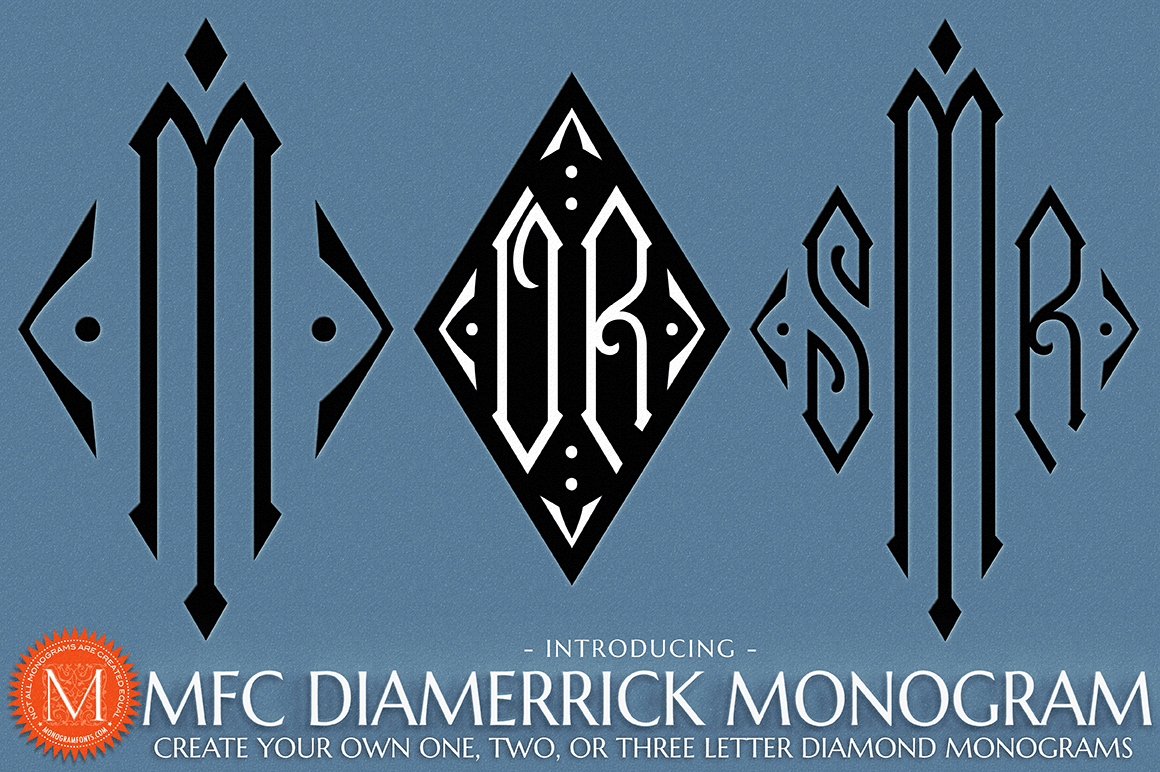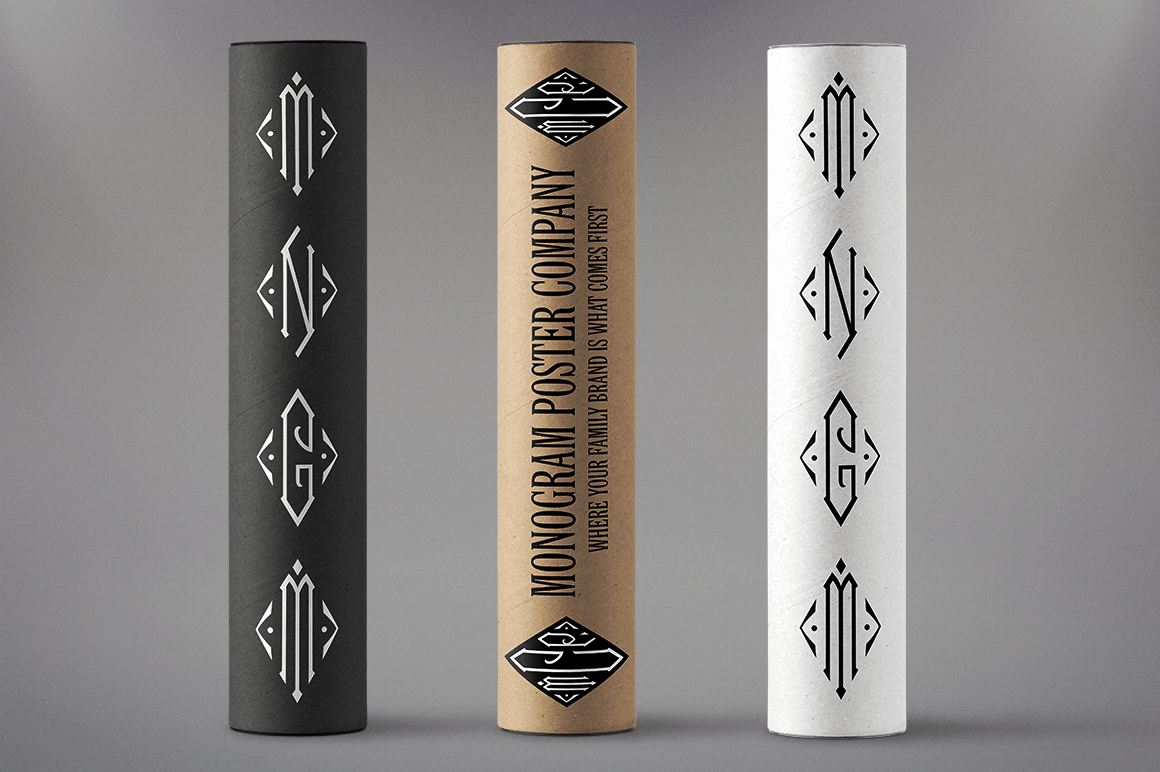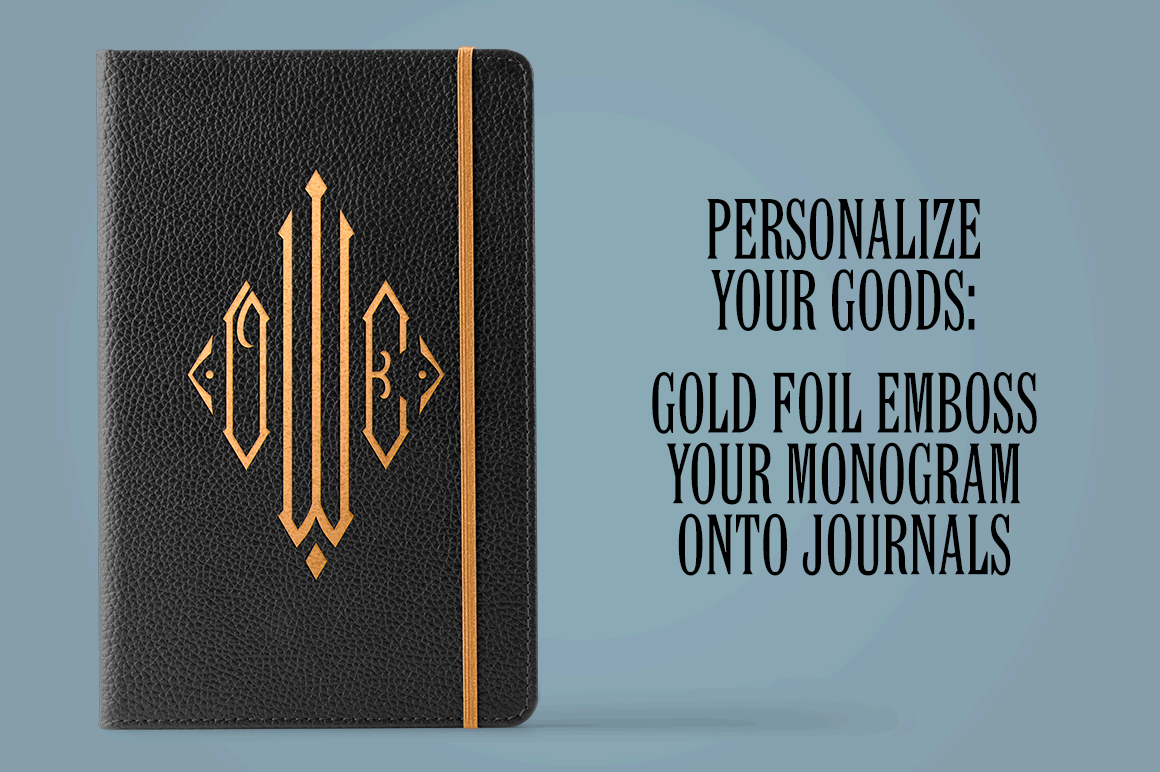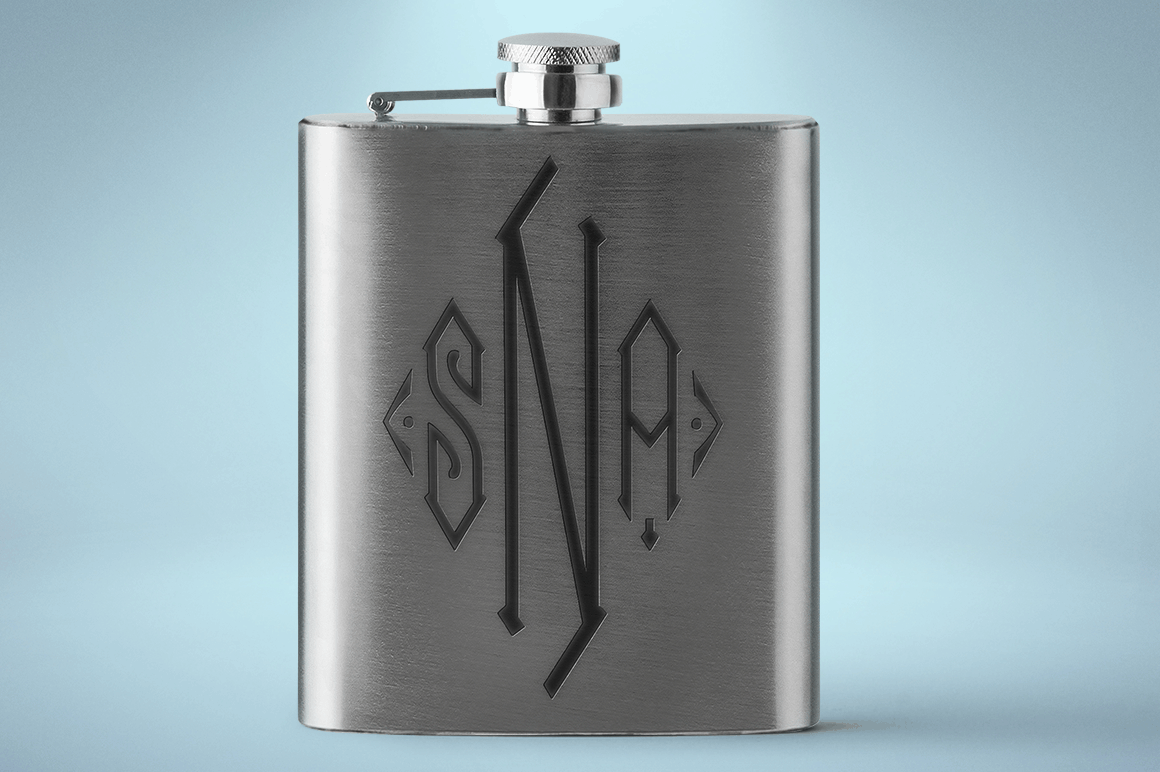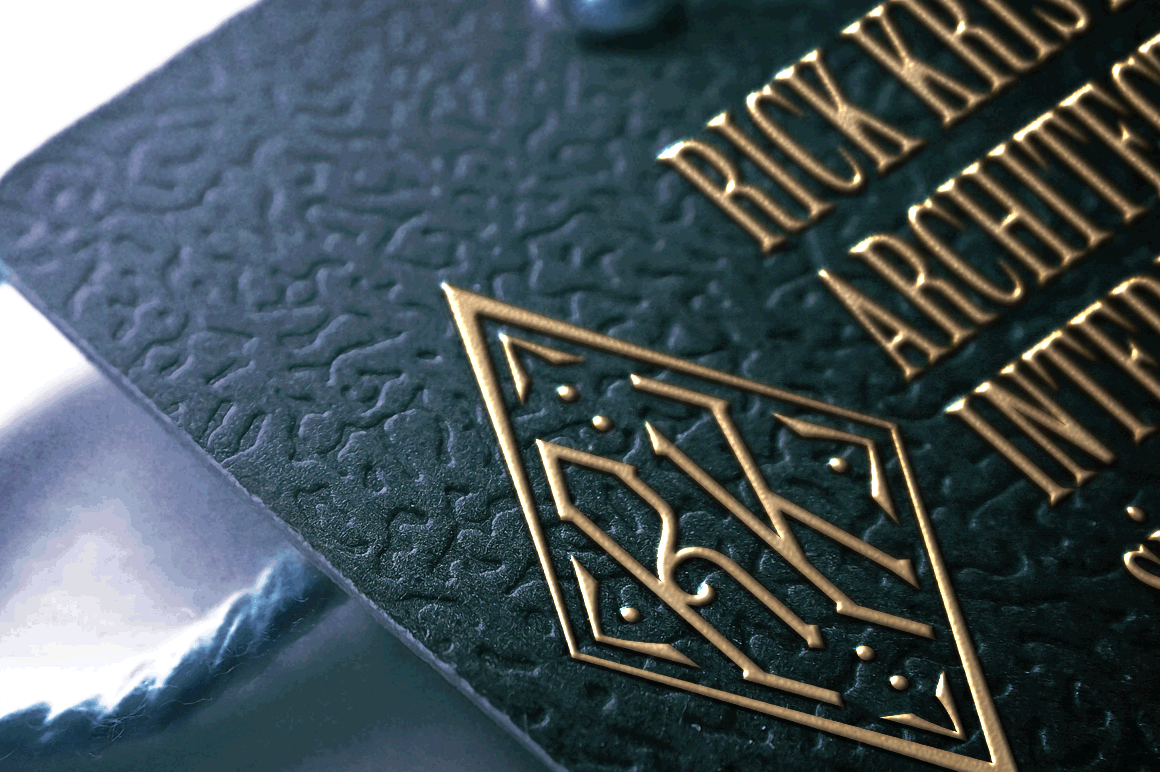
MFC Diamerrick Monograms
The source of inspiration for MFC Diamerrick Monogram is a vintage pre-1930's diamond shaped initial monogram style by Butterick Transfers. We've not only recreated the original styling, but further developed it into a 3-letter diamond monogram format as well.
MFC Diamerrick Monogram is capable of traditional two and three letter format monograms, as well as numerous framing options.
Diammerick Monogram comes complete with both Initial & Monogram fonts. While the Initial font is straightforward to work with, the Monogram font has several formatting options. A PDF guidebook for MFC Diamerrick Monogram is included in the font package.